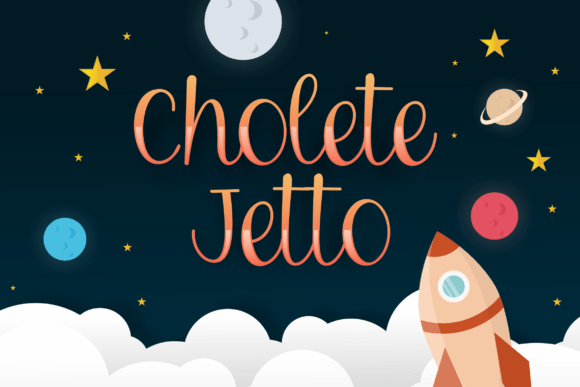
Step into a world of creativity and innovation with Cholete Jetto, the script font that is poised to inspire and transform your designs. A brainchild of the talented kalingga.albert, this bold and authentic handwritten font weaves a unique charm into every character, making it a perfect choice for those seeking to make a striking impact.
Imagine the allure of your tech resume, crafted with the finesse and charisma of Cholete Jetto. Watch as recruiters' eyes gravitate towards the individuality and confidence exuded by your words. This font is not just a collection of letters; it's a symphony of style and substance, allowing your skills and experiences to shine brighter than ever before.
As a versatile performer, Cholete Jetto effortlessly adapts to a multitude of creative endeavors. Envision the possibilities as you design captivating logos that radiate personality and leave a lasting impression. Unleash your creativity in T-shirt printing, where Cholete Jetto will add a touch of uniqueness to your designs, making each shirt a true work of art. Elevate the intensity of your Esports ventures with a font that captures the essence of competition and ignites the passion within your team.
With Cholete Jetto, the boundaries of your imagination are the only limits. Its strength and authenticity shine through in a wide spectrum of contexts, promising to enhance your projects with a touch of originality and flair. Join the ranks of creative visionaries who have discovered the power of Cholete Jetto and unlock the full potential of your designs. Embrace the bold, the authentic, and the extraordinary, and let Cholete Jetto be your ally in creating masterpieces that resonate with your audience.